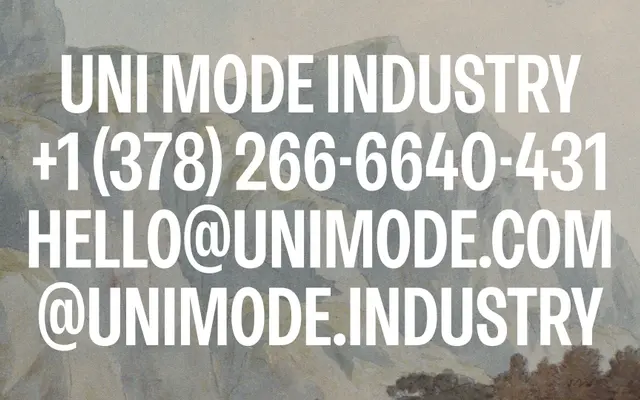
Neue Rational Condensed
Studio Rene Bieder · Rene Bieder
Neue Rational Condensed specimen from Studio Rene Bieder
A condensed grotesque spanning nine weights with matching italics and a suite of OpenType alternates for flexible typesetting.
Neue Rational Condensed runs from Thin to Black across eighteen styles, each weight paired with an italic. OpenType features include tabular and proportional figures, fractions, discretionary ligatures, case-sensitive forms and multiple alternate glyphs for a, g, y and t. The condensed proportions make it well suited to tight editorial layouts, data-heavy interfaces and headline work where horizontal space is at a premium.
A condensed grotesque sans-serif with a broad weight range and alternate character forms, consistent with the neo-grotesque tradition adapted for narrow measures.